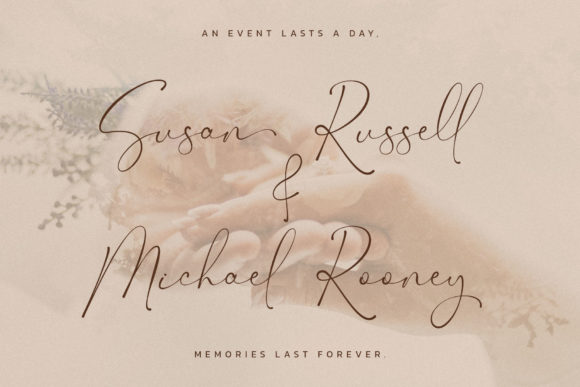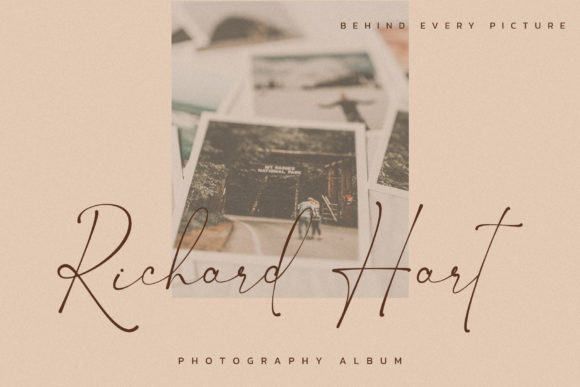
Leontyne Signature Font
db-ku.com - Script & Handwritten -- Leontyne Signature is a beautiful and flexible handwritten font. It is suitable for various design needs such as business cards, wedding invitations, banner ads and various other designs.